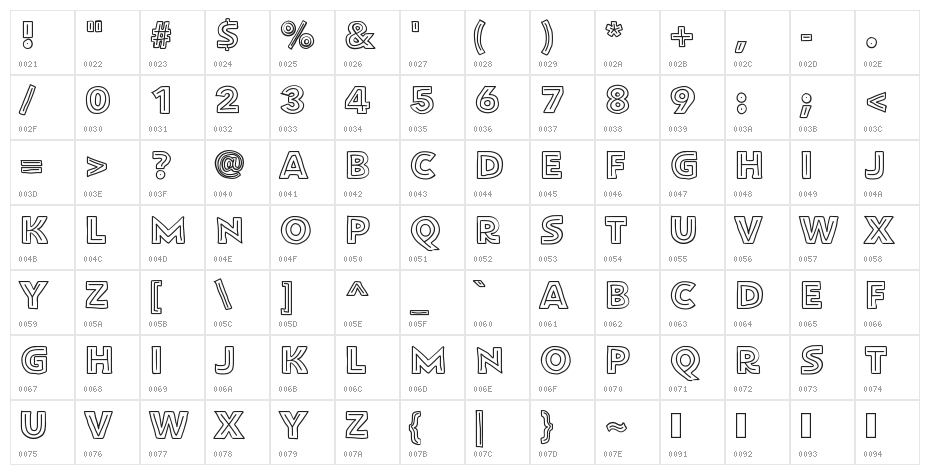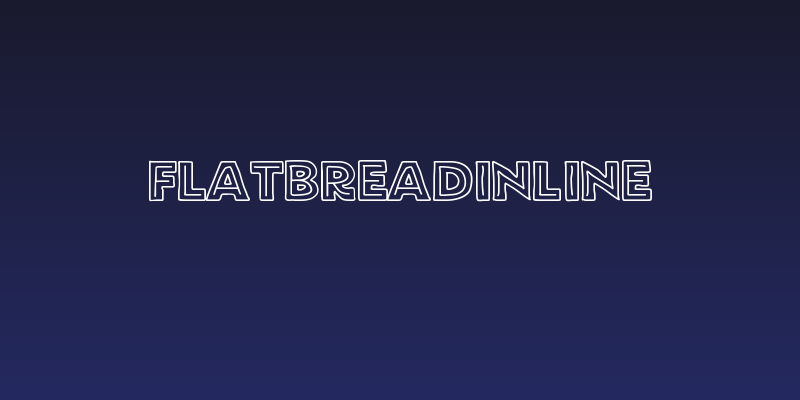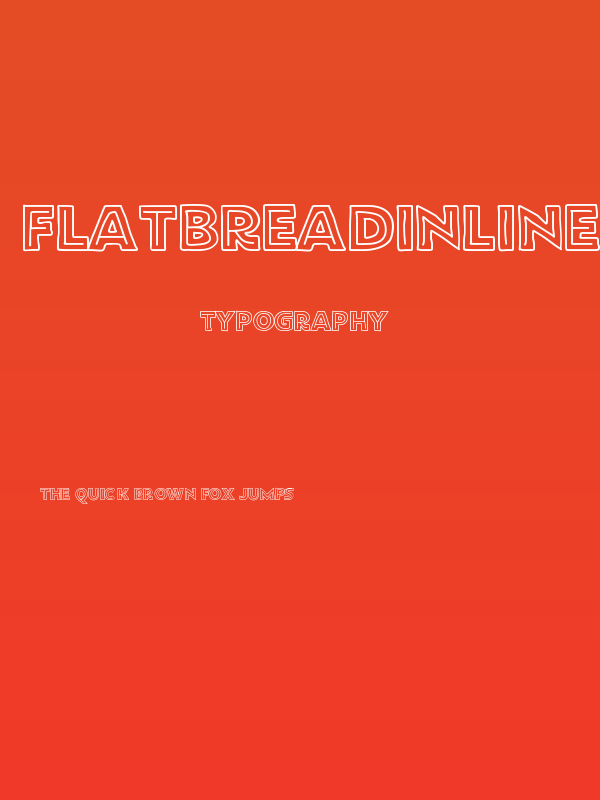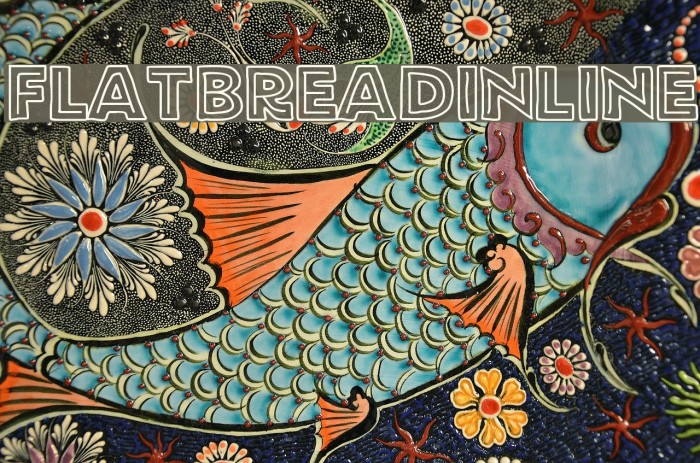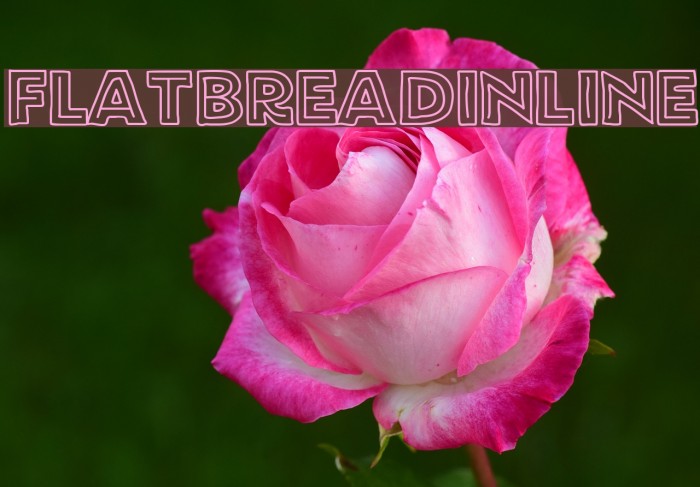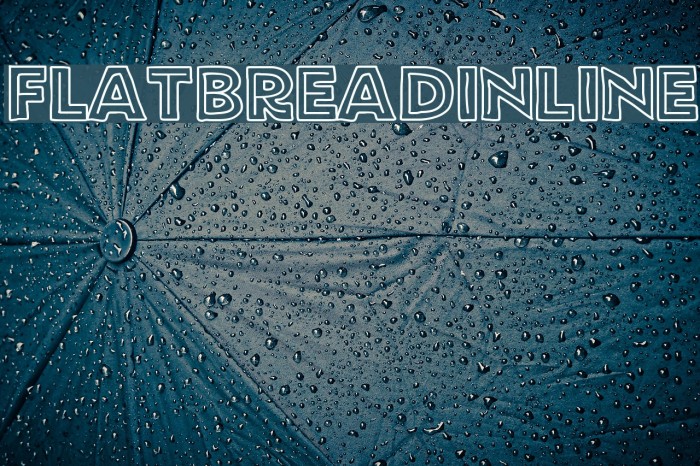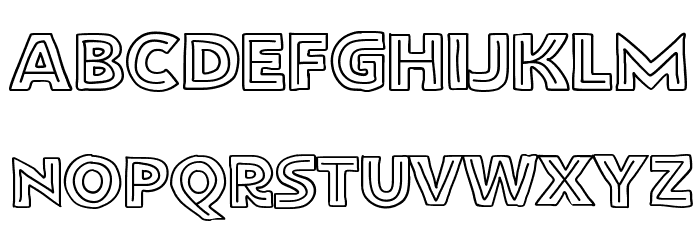
FlatBreadInline Font
FlatBreadInline Description
This font features a bold, outlined style with a modern and playful aesthetic. The characters are uppercase and lowercase letters, numbers, and a variety of special symbols. Each character is defined by a thick outer line, creating a hollow effect that gives it a distinctive, eye-catching appearance. The design is clean and geometric, with a uniform stroke width that maintains consistency across all characters. This font is ideal for projects that require a strong visual impact, such as posters, headlines, and branding materials. Its unique style makes it suitable for creative and contemporary designs.
| Proposed Projects | Ideal for posters, headlines, branding, and creative designs. |